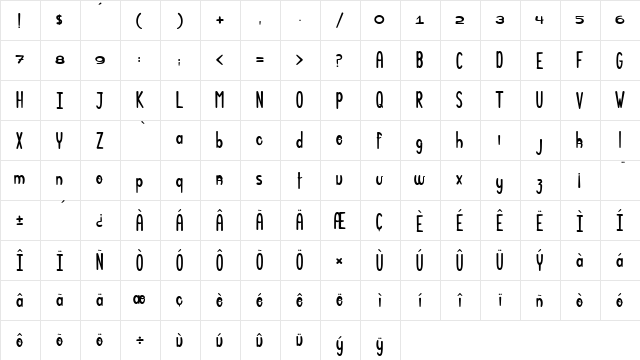
Big Bang Comix Regular
| Foundry | dcoxy Medina Gregory |
| Designer | dcoxy Medina Gregory |
Design Context for Big Bang Comix Typeface
Big Bang Comix is a composed and adaptable typeface that performs quietly and consistently across a wide range of design contexts.